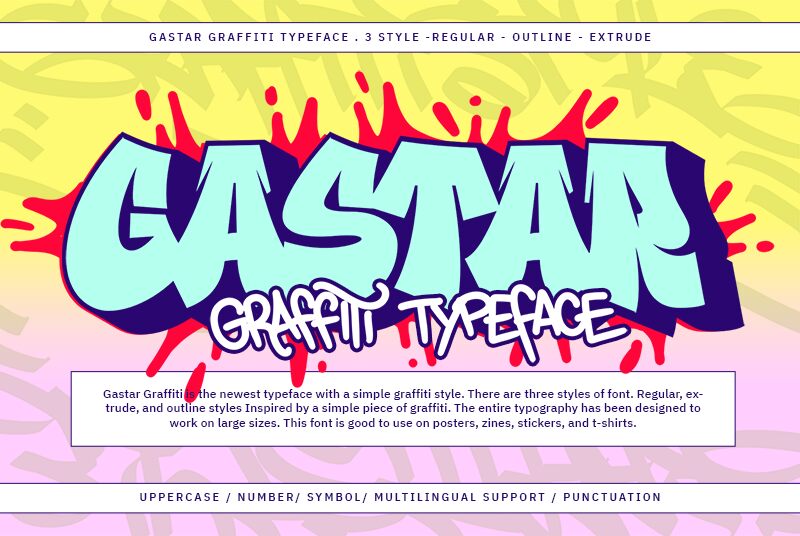
Gastar Graffiti Extrude
Gastar Graffiti Extrude font, designed by Fitrah Type, is a graffiti font that combines quirkiness with classic style. This bold and loud display typeface adapts graffiti’s expressive nature to give off a powerful and confident impression for the readers. Graphics made with this free font will have a retro-inspired yet modern look.
Use Gastar Graffiti Extrude in creatively demanding design projects for both digital and print platforms. Possible use cases include logo design, packaging design, branding, streetwear designs, posters, album cover designs, social media banners/flyers/posts/adverts, labels/stickers/decorations on packaging/paper bags/toys. It’s your imagination’s limit to what you can do more with this gem!